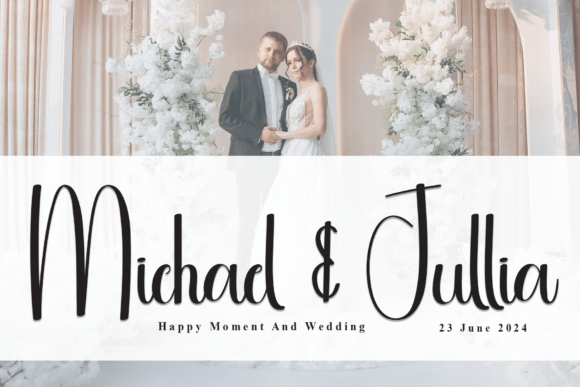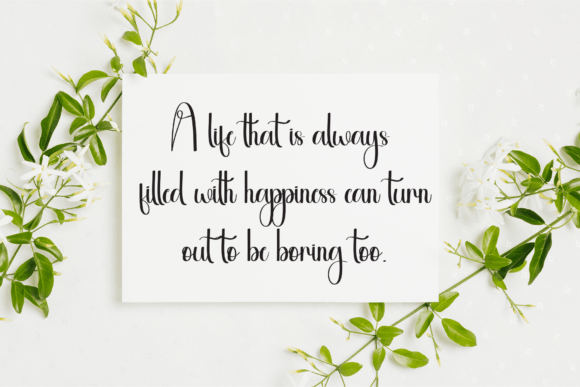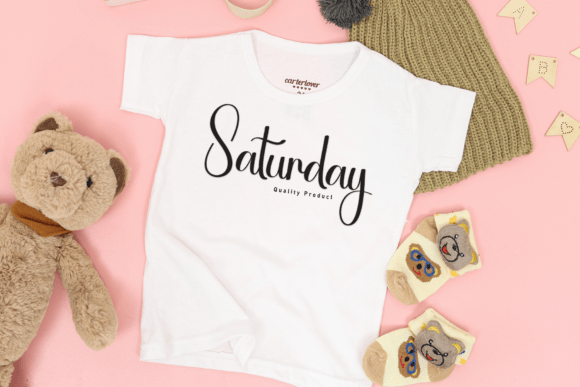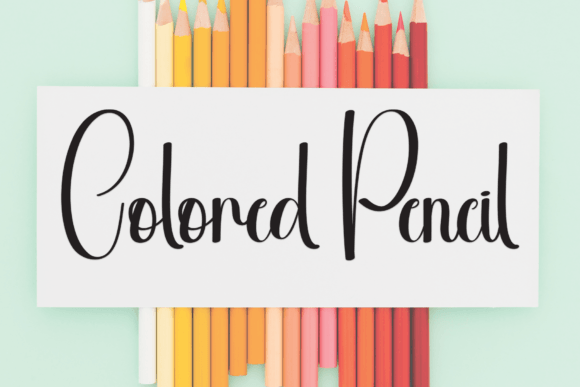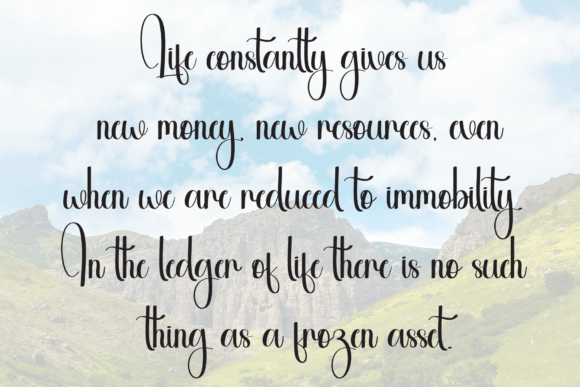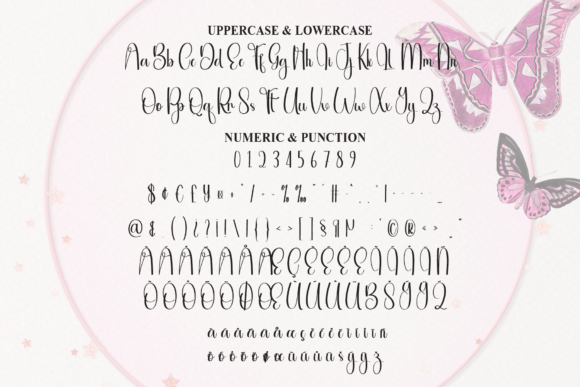
Unleash the Joy of Handwritten Charm
Who hasn’t felt the rush of excitement when brainstorming ideas for a special project? Maybe it’s a wedding invitation, a birthday card, or a heartfelt letter to a loved one. In those moments, we crave the perfect font to convey our emotions and make the message truly special. That’s where the enchanting Butterfly Font comes in – a charming handwritten display font designed to add a touch of whimsy and warmth to any design.
Perfect for designers seeking to add a playful twist to their projects, the Butterfly Font is a valuable addition to any toolkit. Its unique blend of casual elegance and lighthearted joy makes it an ideal choice for creating engaging and enchanting pieces of art. Whether you’re looking to add a sprinkle of fun or convey heartfelt emotions, this adorable font is sure to delight your audience.
Butterfly Font Key Features
- Font Family: Butterfly Font comes in multiple font families, including regular, bold, italic, and bold italic styles.
- Unique Characteristics: The Butterfly Font features a unique, hand-drawn design with intricate details and flourishes, giving it a whimsical and elegant feel.
- Language Support: Supports a wide range of languages, including Latin, Cyrillic, Greek, and many others, making it a versatile font for global applications.
Designer Review: Butterfly Font
Overall, I think the Butterfly Font has a lot of potential, but it also has some notable limitations. ✨ The font’s playful, whimsical style is sure to catch attention and add a touch of personality to any design project. The delicate curves and subtle flourishes give it a charming, hand-drawn feel that’s hard to resist.
- ✨ Great for creative, artistic projects that need a touch of whimsy
- ✨ Can be used effectively for titles, headings, and short blocks of text
However, there are some areas where the font falls short. ⚠️ The character set is relatively limited, making it less suitable for lengthy blocks of text. Additionally, the font’s playfulness can sometimes come across as childish or over-the-top, which may not be suitable for all design projects. Finally, the font’s high resolution images can make it quite large in file size, which may be a concern for web designers.
Overall, I think the Butterfly Font is a solid choice for designers who want to add a touch of whimsy to their projects. While it may not be suitable for every design task, its unique style and high-resolution images make it a great option for creative, artistic projects.
The Butterfly Font is ideal for:
- Party decorations and signage